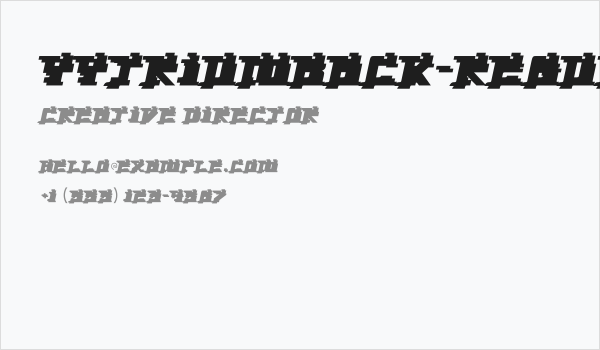
YytriumBack-Regular Font
YytriumBack-Regular Description
This font features a bold and dynamic style with a pixelated, digital aesthetic. The characters are constructed with sharp, angular edges and a blocky appearance, reminiscent of retro video game graphics. The uppercase and lowercase letters maintain a consistent design, creating a cohesive look across the alphabet. Numbers and special characters follow the same stylistic approach, ensuring uniformity. The font's unique style makes it stand out, suitable for projects that require a futuristic or tech-inspired theme.
| Proposed Projects | Ideal for video game graphics, tech-themed posters, digital art, and branding for technology companies. |